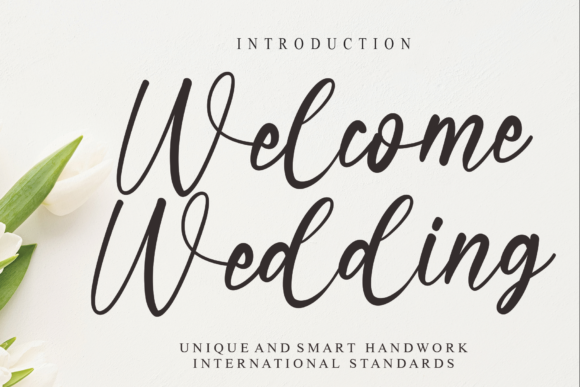
Embrace the allure of Welcome Wedding, a captivating script font that dances across your designs with effortless grace. Inspired by the timeless elegance of wedding vows, this font is a true masterpiece, delicately crafted to add a touch of romance and sophistication to your creative endeavors.
Immerse yourself in the enchanting world of Welcome Wedding, where each letter intertwines like a delicate vine, exuding a sense of refinement and beauty. Its smooth curves and sweeping lines evoke the joy of a summer breeze, while the subtle variations in thickness add depth and dimension to your words.
Indulge in the versatility of Welcome Wedding, a font that seamlessly complements various graphic design projects. Whether you're creating elegant wedding invitations, enchanting posters, or eye-catching social media graphics, Welcome Wedding adapts effortlessly to your vision. Its charm knows no bounds, captivating hearts across a wide range of designs.
Welcome Wedding is the perfect choice for designers seeking a font that exudes both sophistication and playfulness. Its charming personality shines through in every word, making it an ideal font for adding a touch of whimsy to your projects. Let Welcome Wedding be your creative companion, guiding you towards designs that leave a lasting impression.
Don't miss out on the chance to elevate your designs with Welcome Wedding, a font that speaks to the heart and captivates the imagination. Its timeless beauty and versatility will transform your creative projects into works of art, leaving your audience spellbound. Experience the magic of Welcome Wedding today and let your designs flourish with elegance and grace.